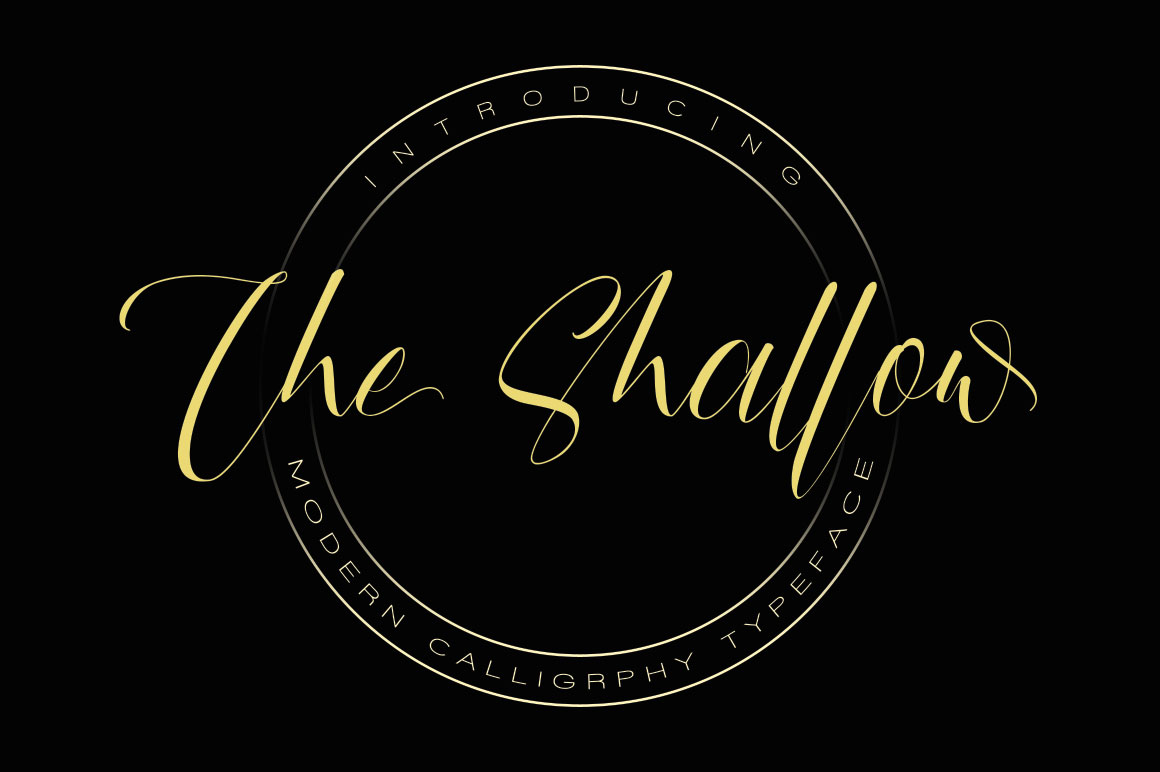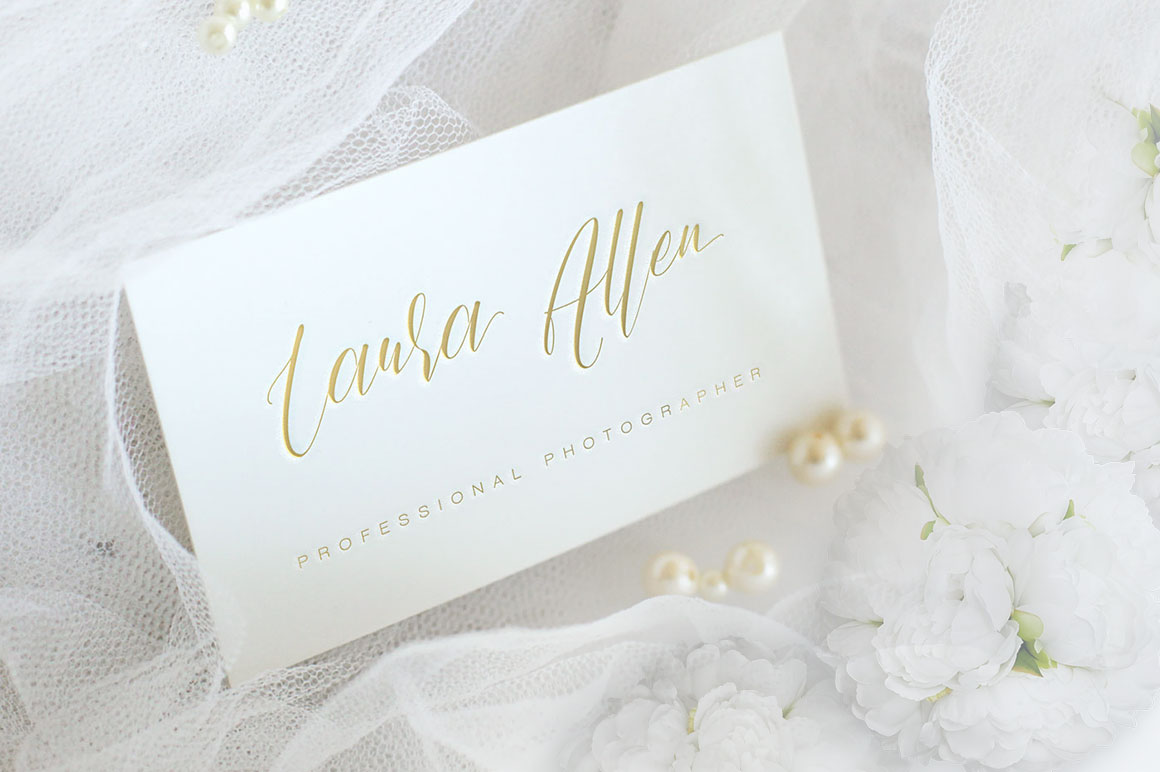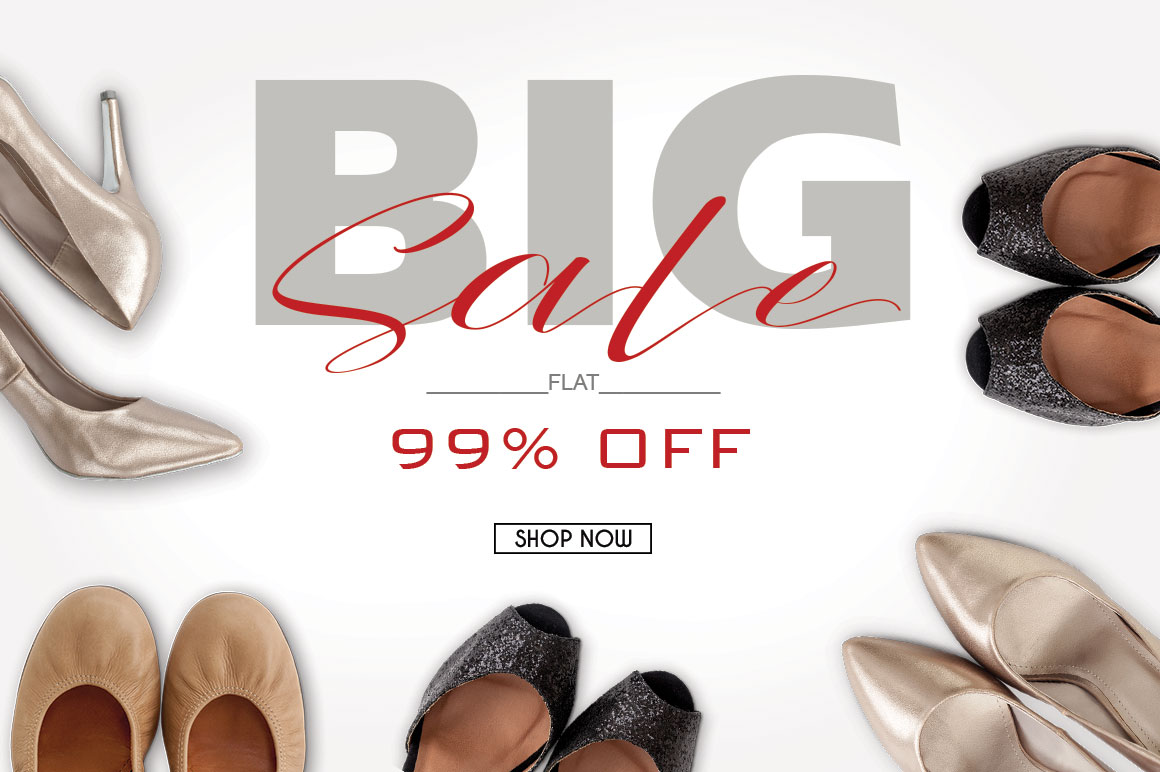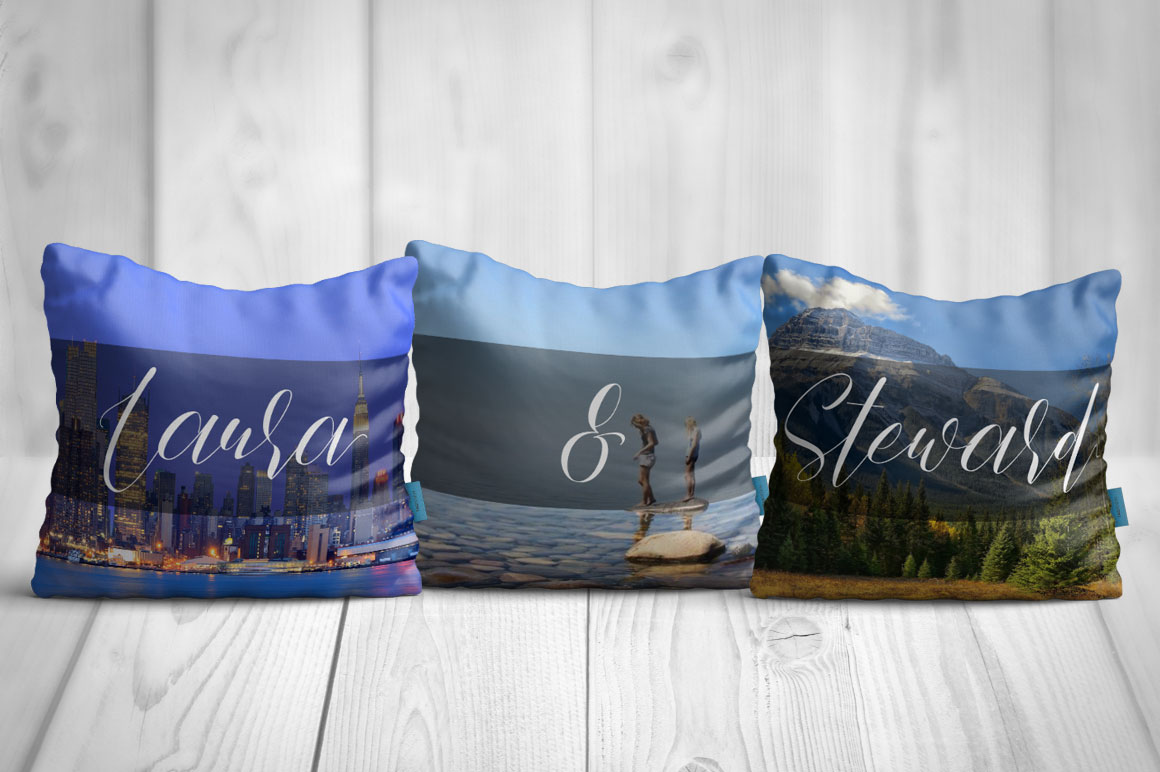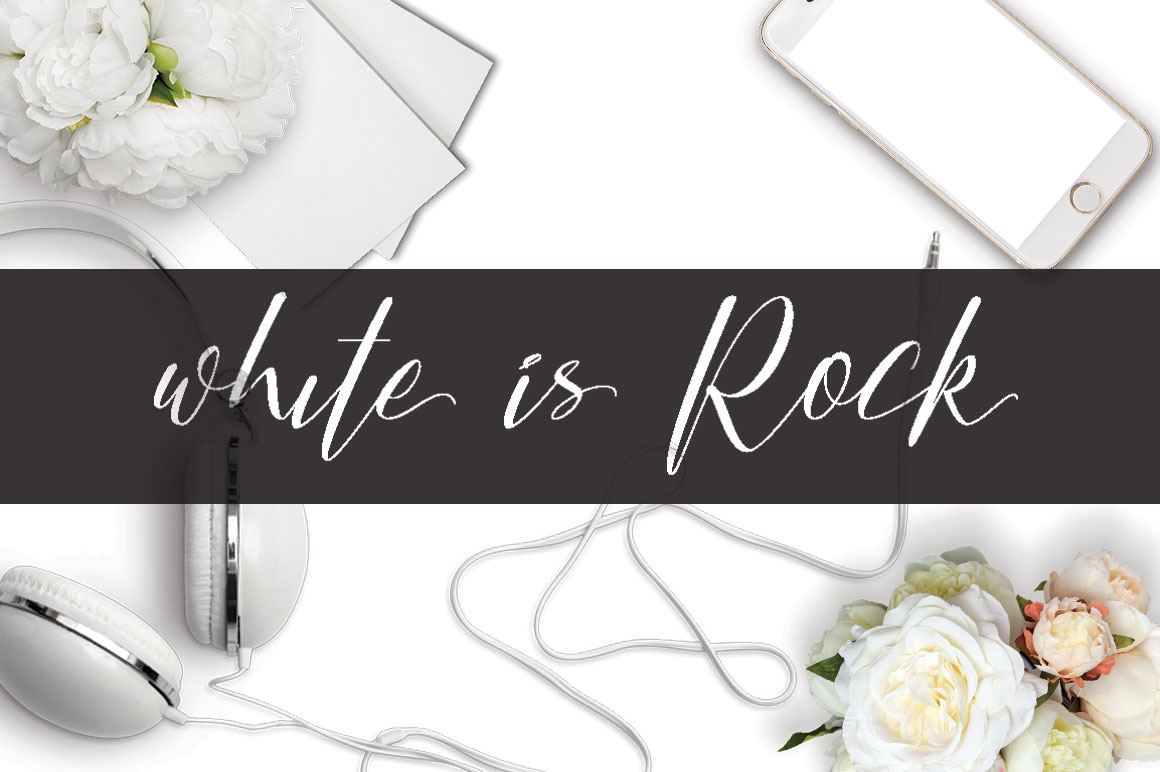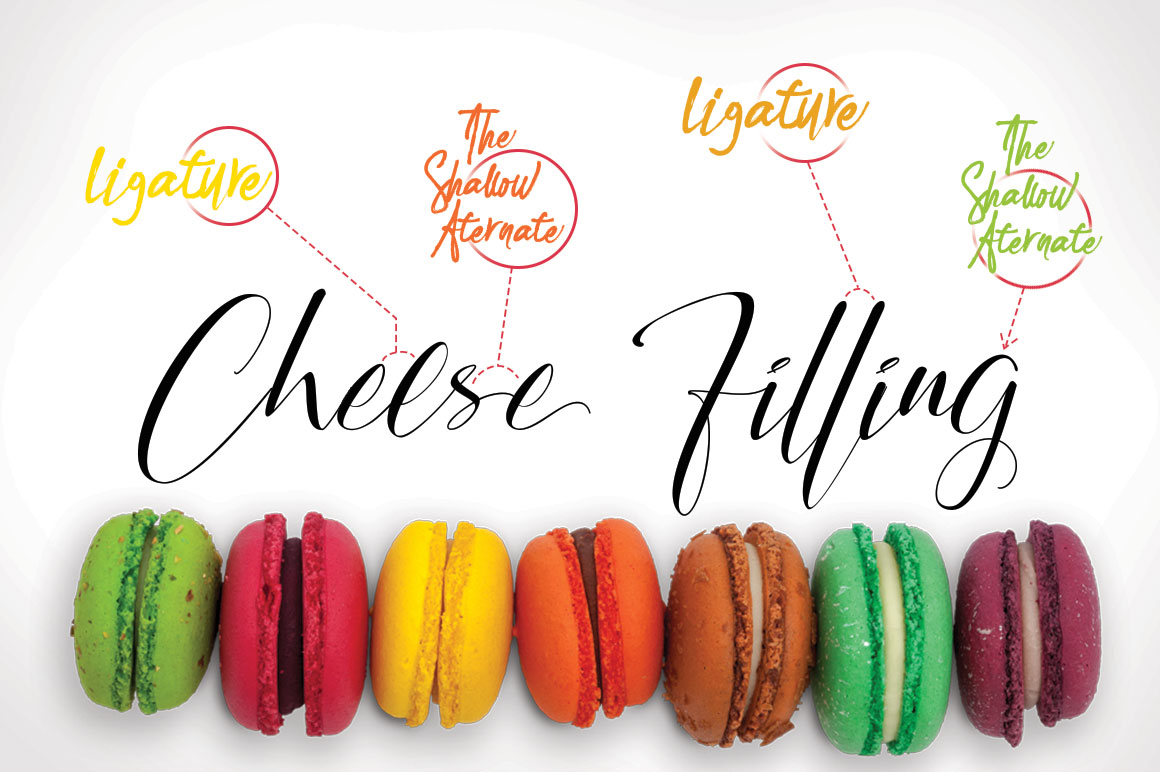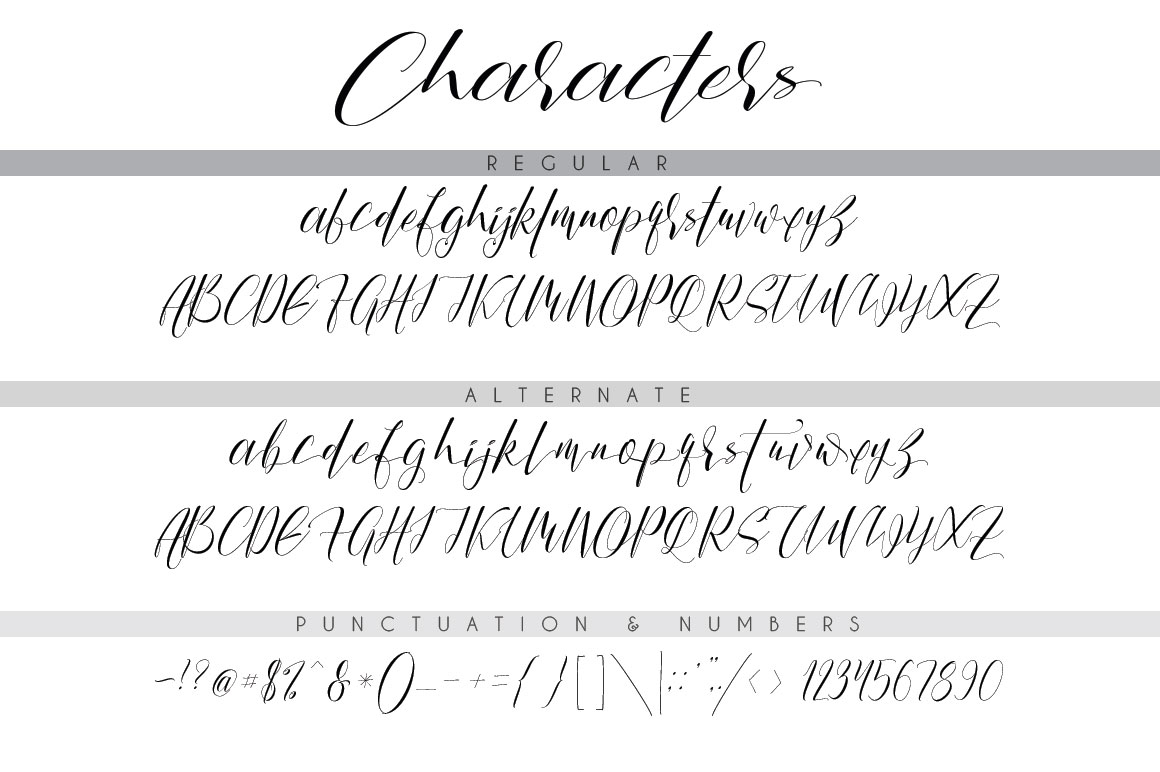
The Shallow Font
About The Shallow Font
The Shallow is a clean, classy handwritten font that comes in 2 variations: The Shallow & The Shallow Alternate.
It has a very natural flow, making your designs look dynamic!